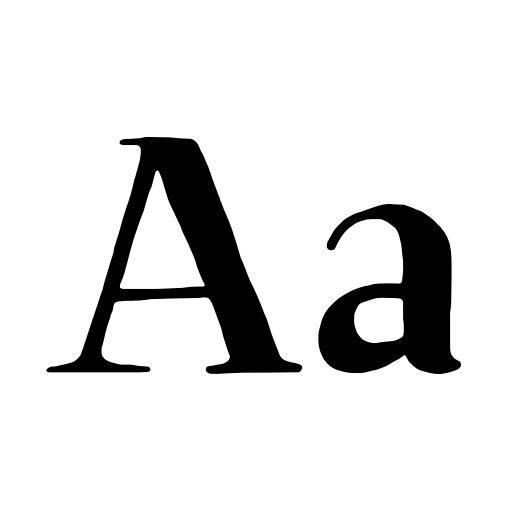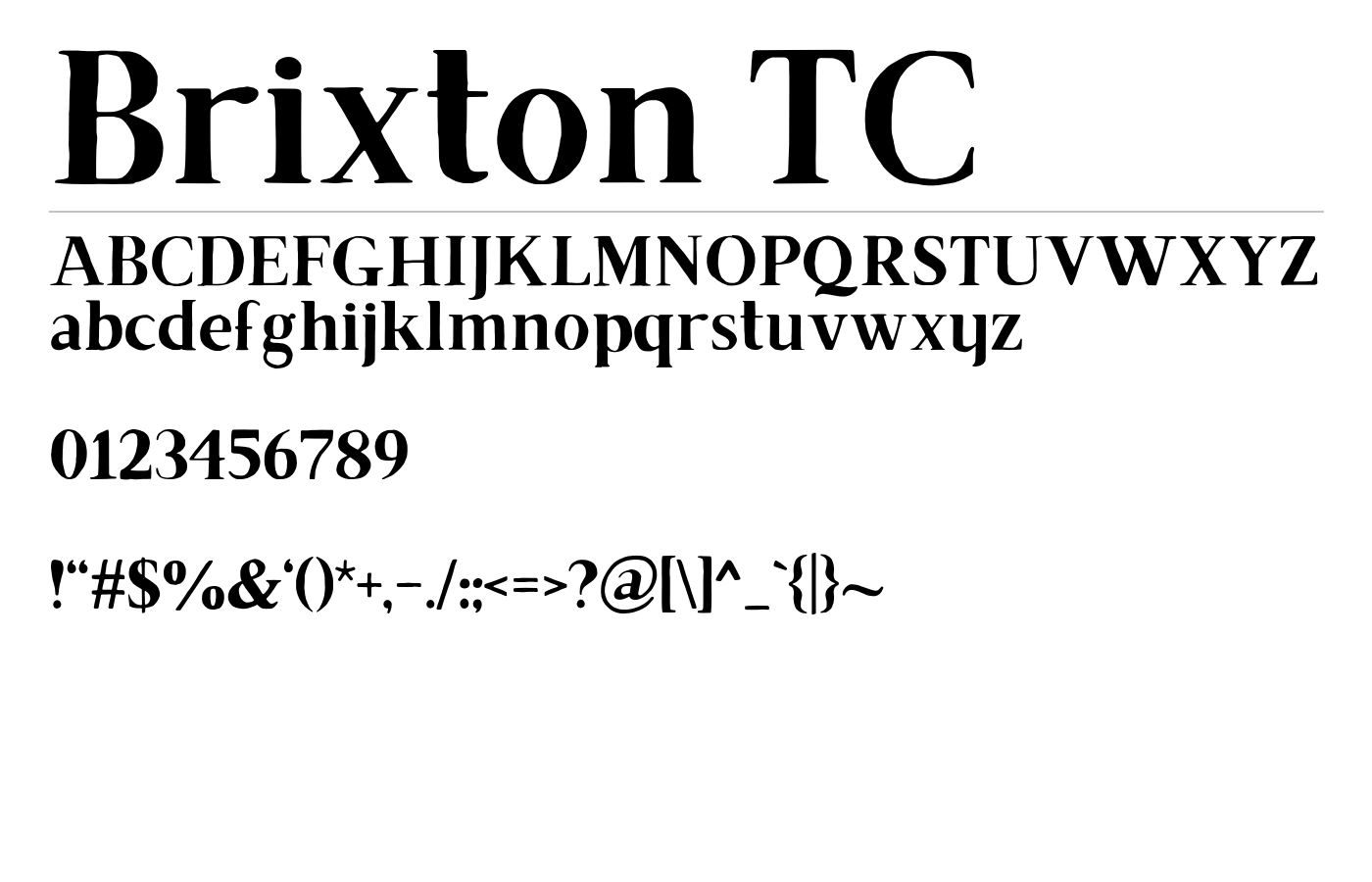
Brixton TC is a serif font with a distinct vintage vibe, featuring medium contrast between thick and thin strokes and sharp, bracketed serifs that add elegance and character to each letter. It includes both uppercase and lowercase in a double-story style for letters like "a" and "g," with a slightly condensed width and a balanced x-height that enhances readability. This font suits editorial design, branding for upscale or nostalgic products, and headlines where a touch of classic sophistication is desired.
Brixton TC Font
About Brixton TC Font
| Font family | Brixton TC Font |
| Designer | Tom Chalky |